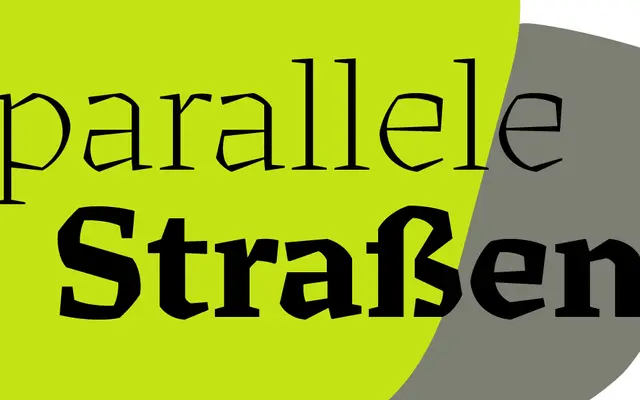
Cedar
A display typeface by Jesse Ragan that fuses calligraphic structure with deliberately dissonant digital geometry to produce a hand-carved, tactile appearance.
Jesse Ragan's Cedar wraps rudimentary vector shapes around calligraphic letterform structures, creating a tension between tactile warmth and overtly digital construction. The dissonant arcs and corners give each letterform a sculptural, almost chiselled quality that reads as handmade from a distance yet reveals its digital origins on close inspection. Released in 2020 and still in active development at version 0.3, it is available as a variable font spanning five named weights from Thin to Ultra.
Cedar uses calligraphic structures wrapped in rudimentary vector shapes with dissonant arcs and corners, giving it a hand-carved, tactile quality that places it firmly in the display category with a distinctive sculptural character.